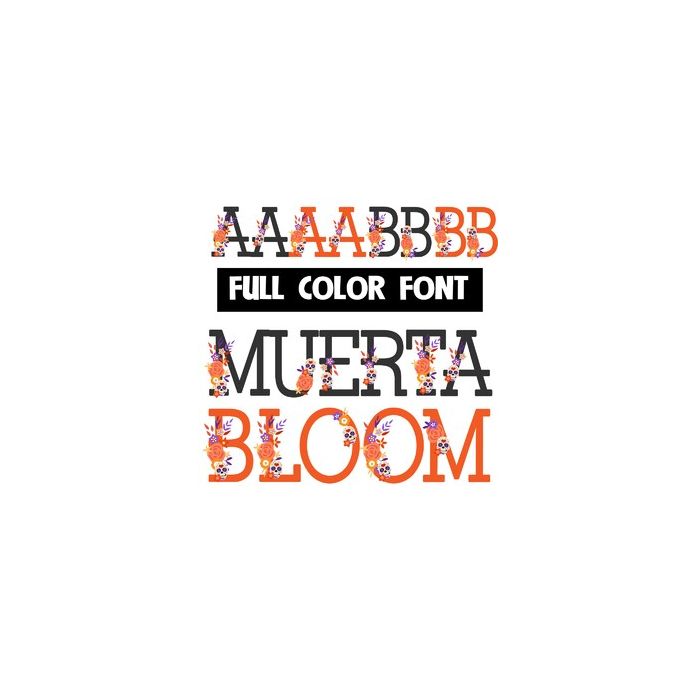
This full-color font features blooms and little floral skulls to celebrate the Day of the Dead and Halloween. There is secondary upper and lowercase you can access through Silhouette's glyph map in orange.